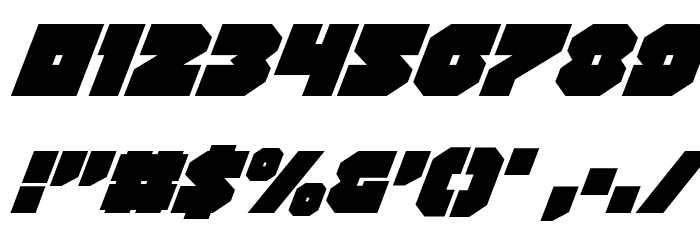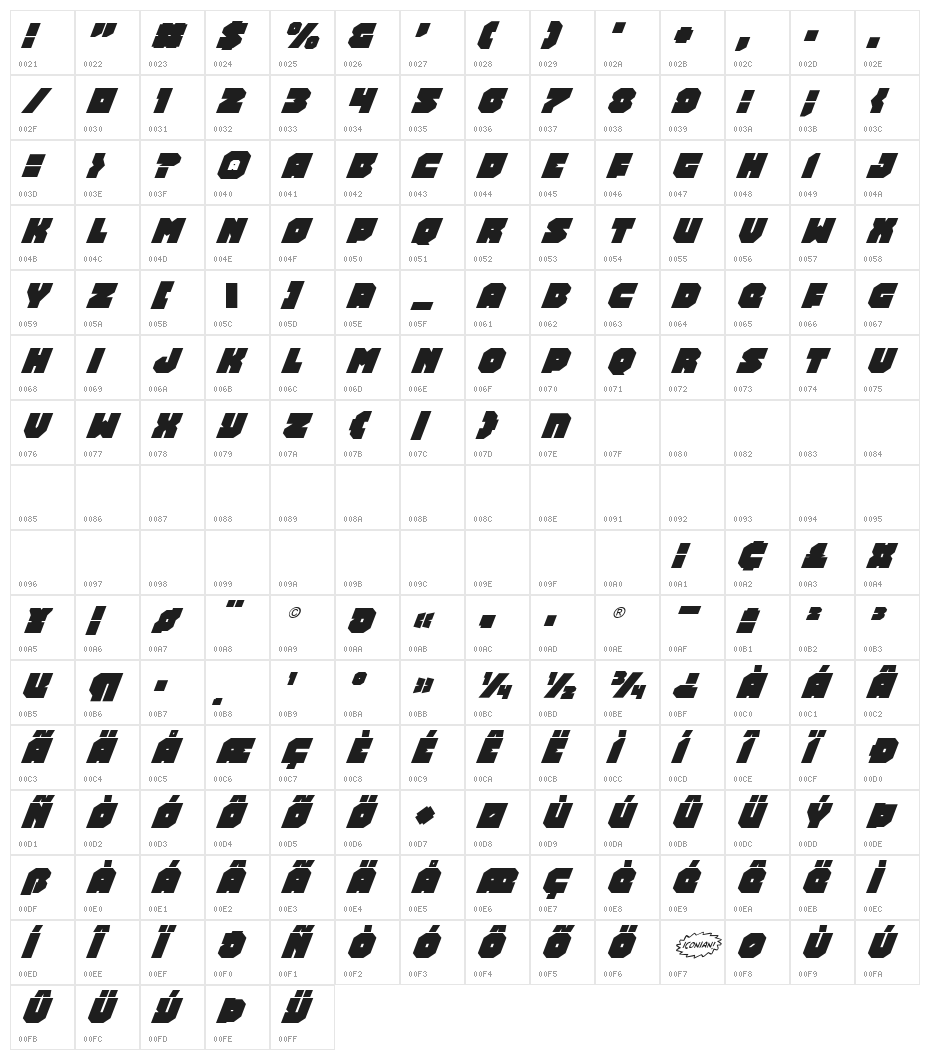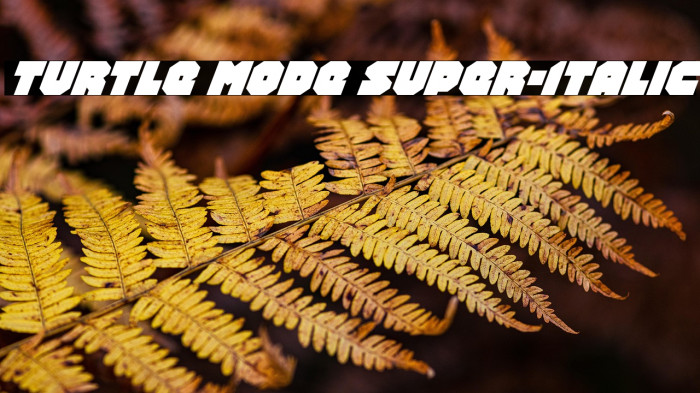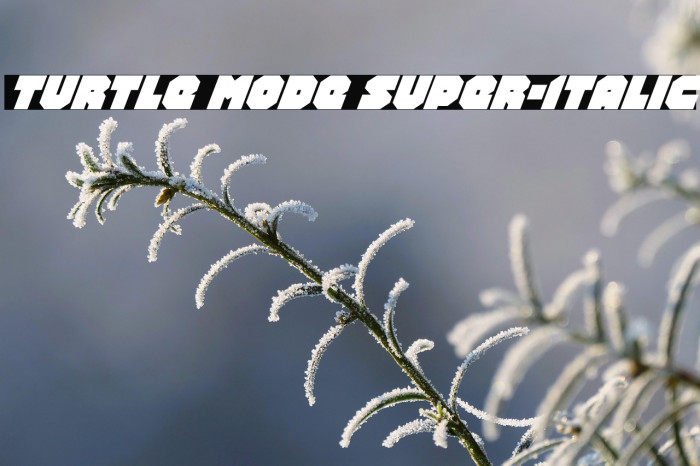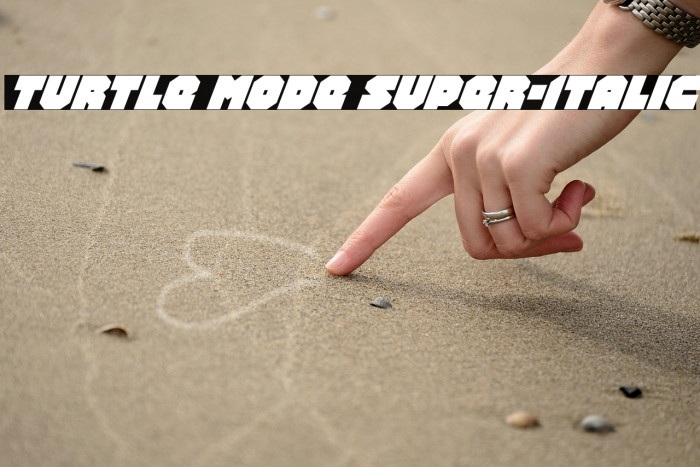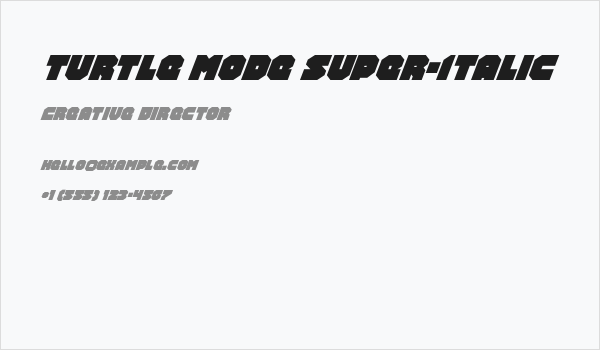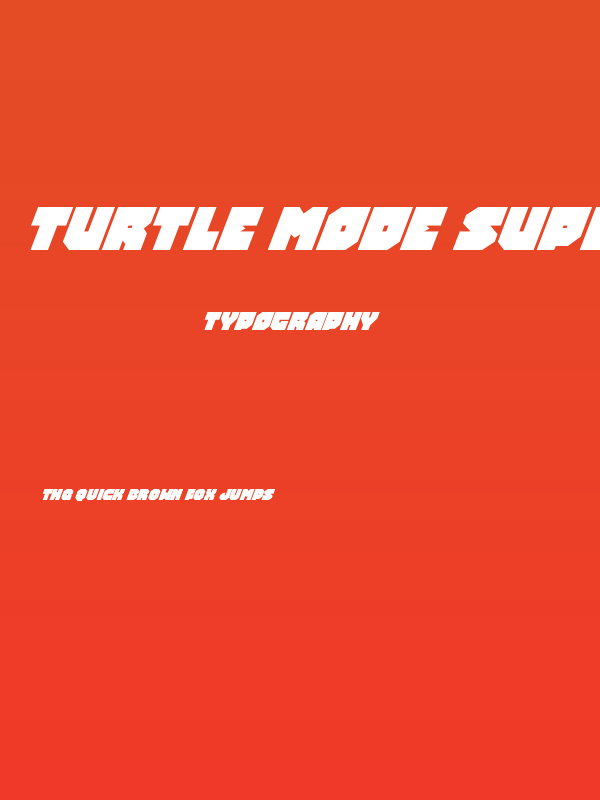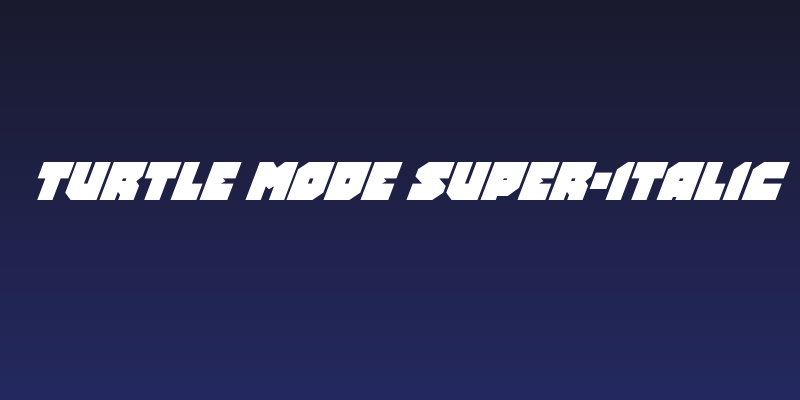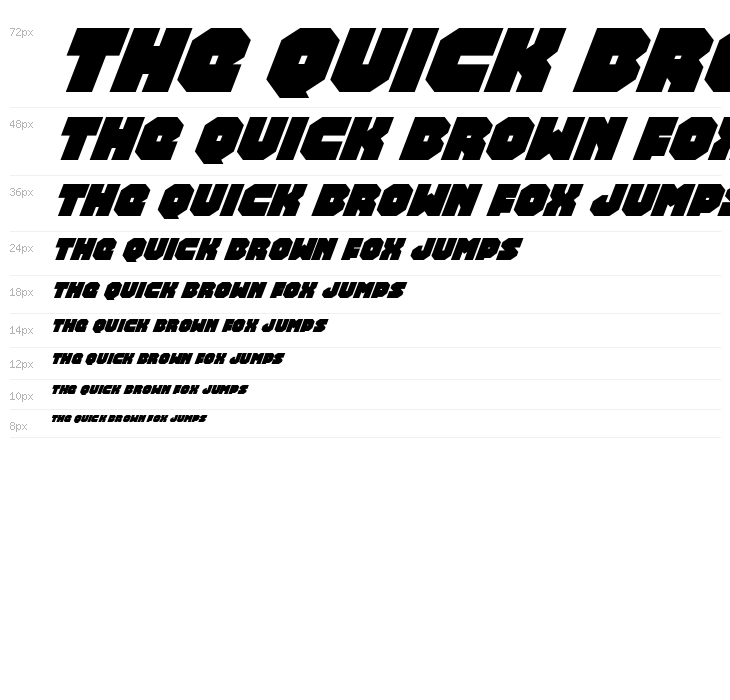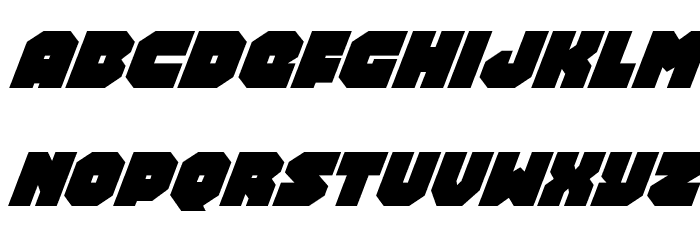
Turtle Mode Super-Italic Font
Turtle Mode Super-Italic Description
This font features a bold and dynamic style with a strong italic slant, giving it a sense of motion and energy. The characters are blocky and angular, with sharp edges and a futuristic appearance. The uppercase and lowercase letters maintain a consistent style, while the numerals and special characters integrate seamlessly into the overall design. The font's boldness and unique style make it stand out, suitable for projects that require a strong visual impact.
| Proposed Projects | Ideal for sci-fi themed designs, video game titles, posters, and branding that requires a modern and dynamic look. |